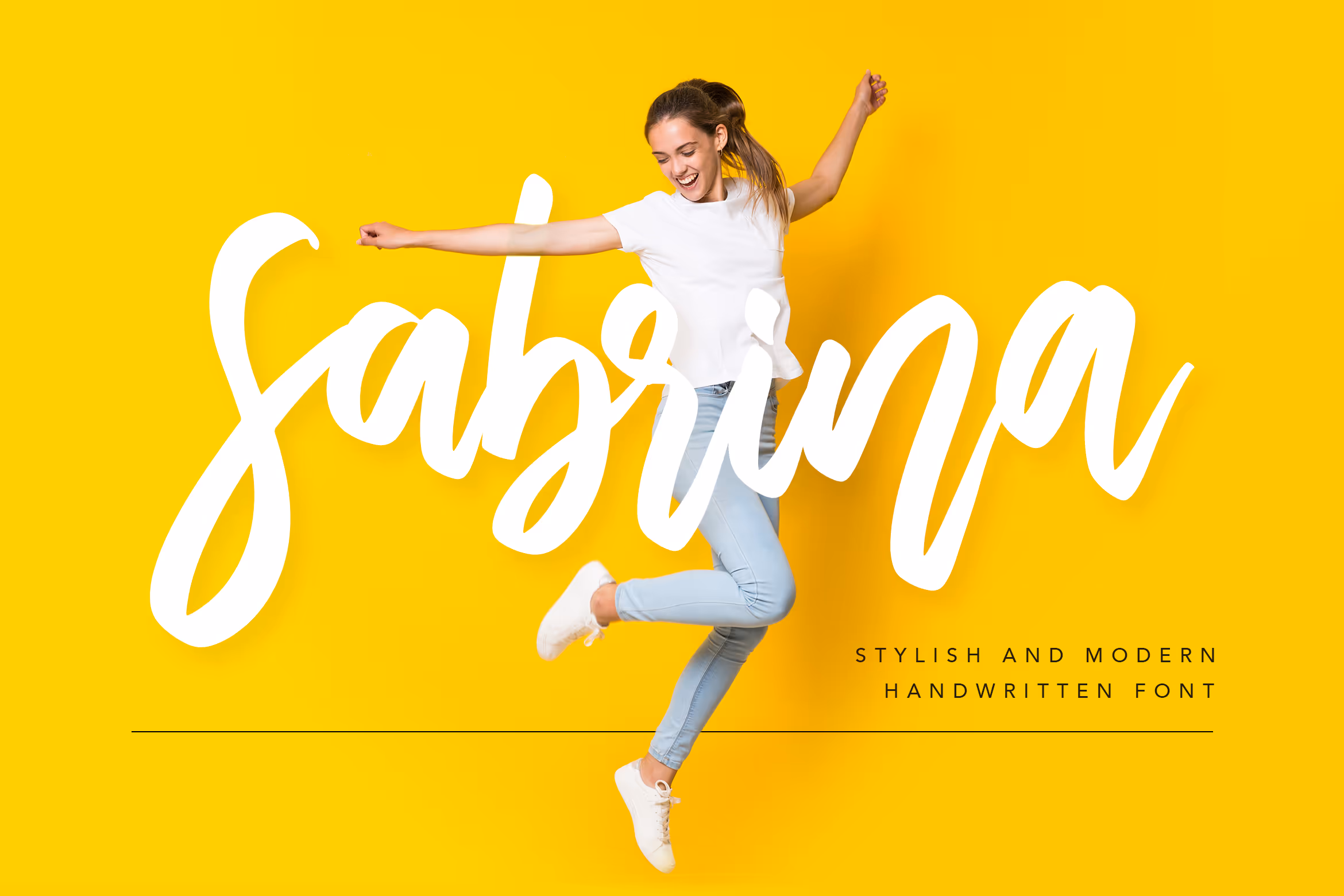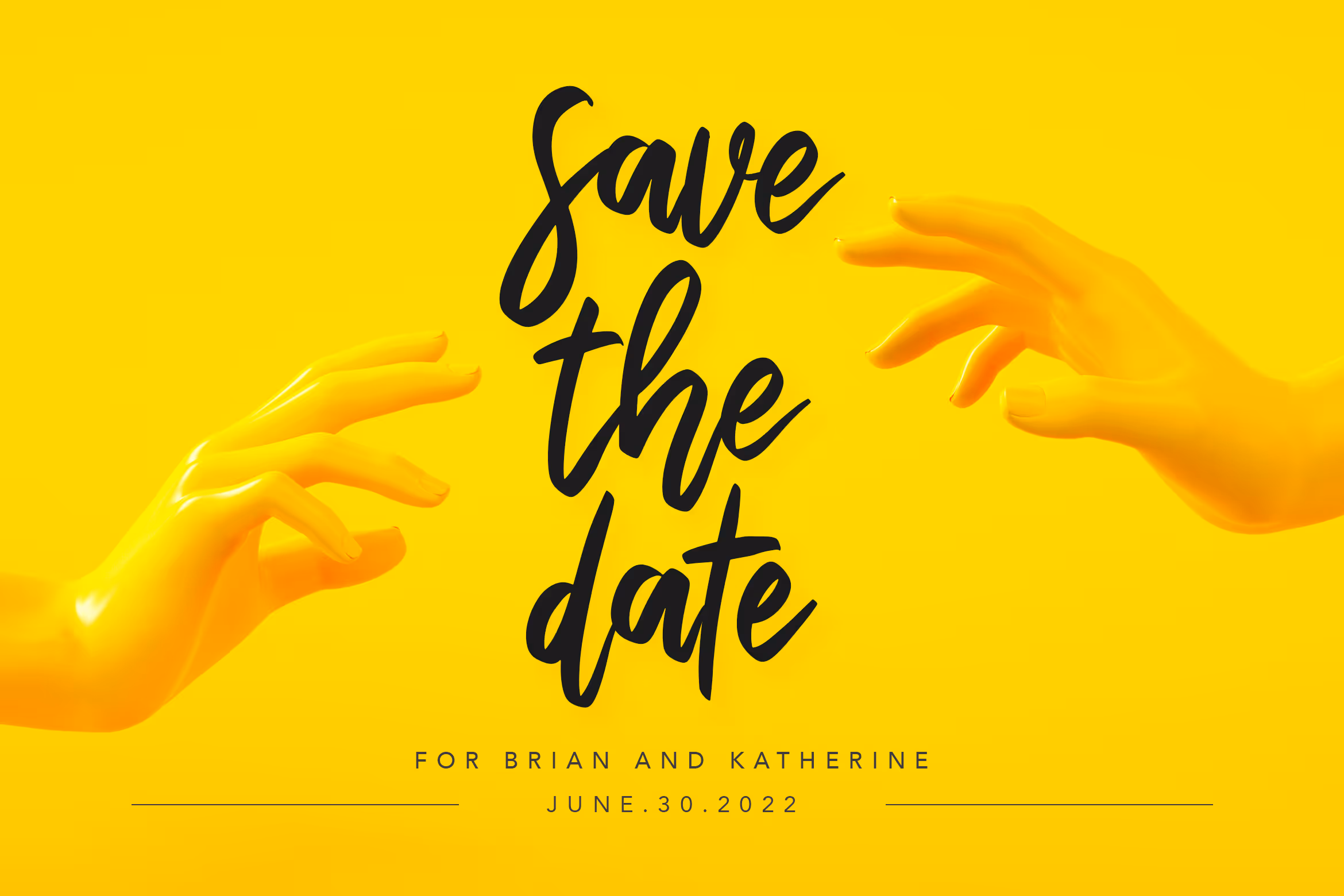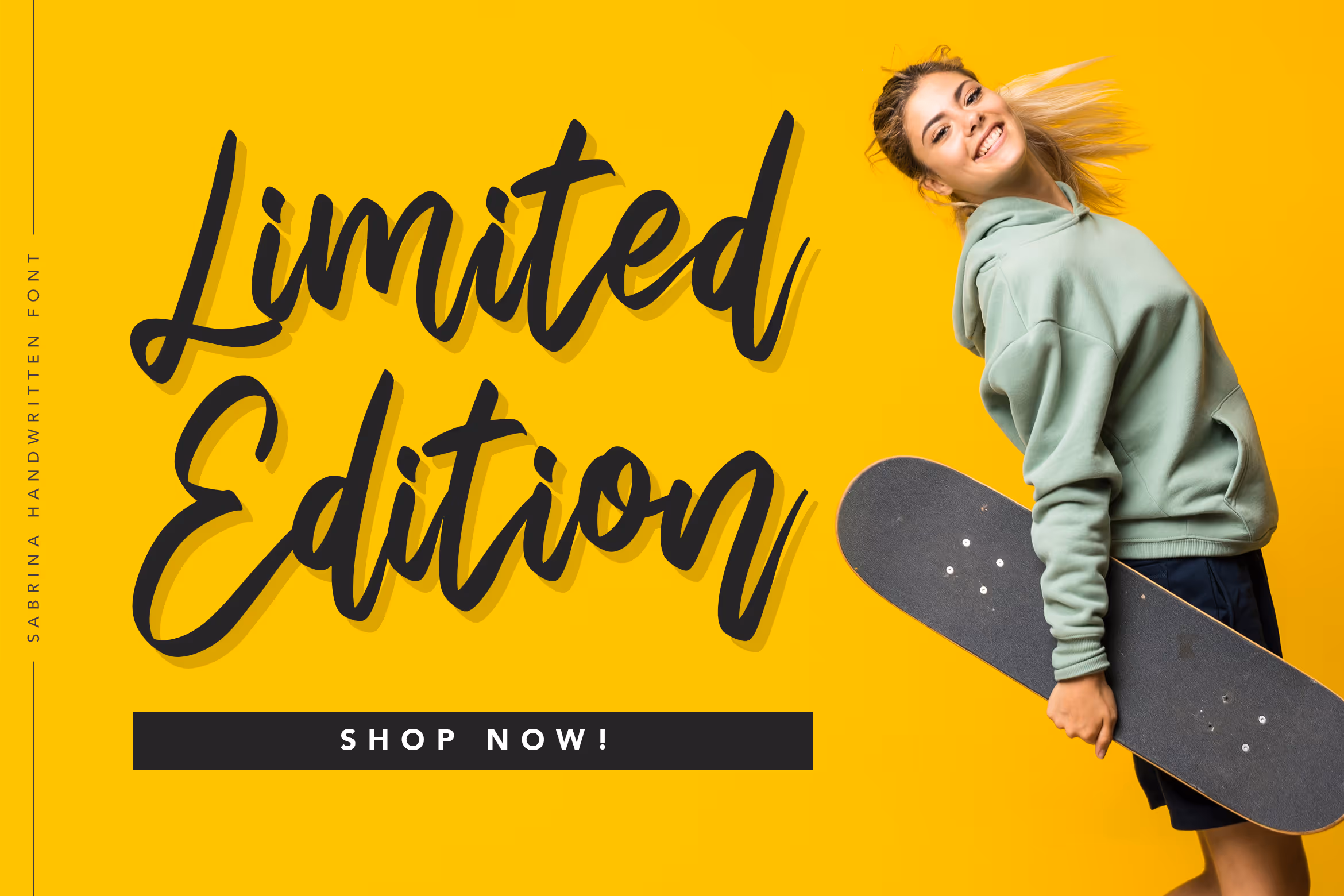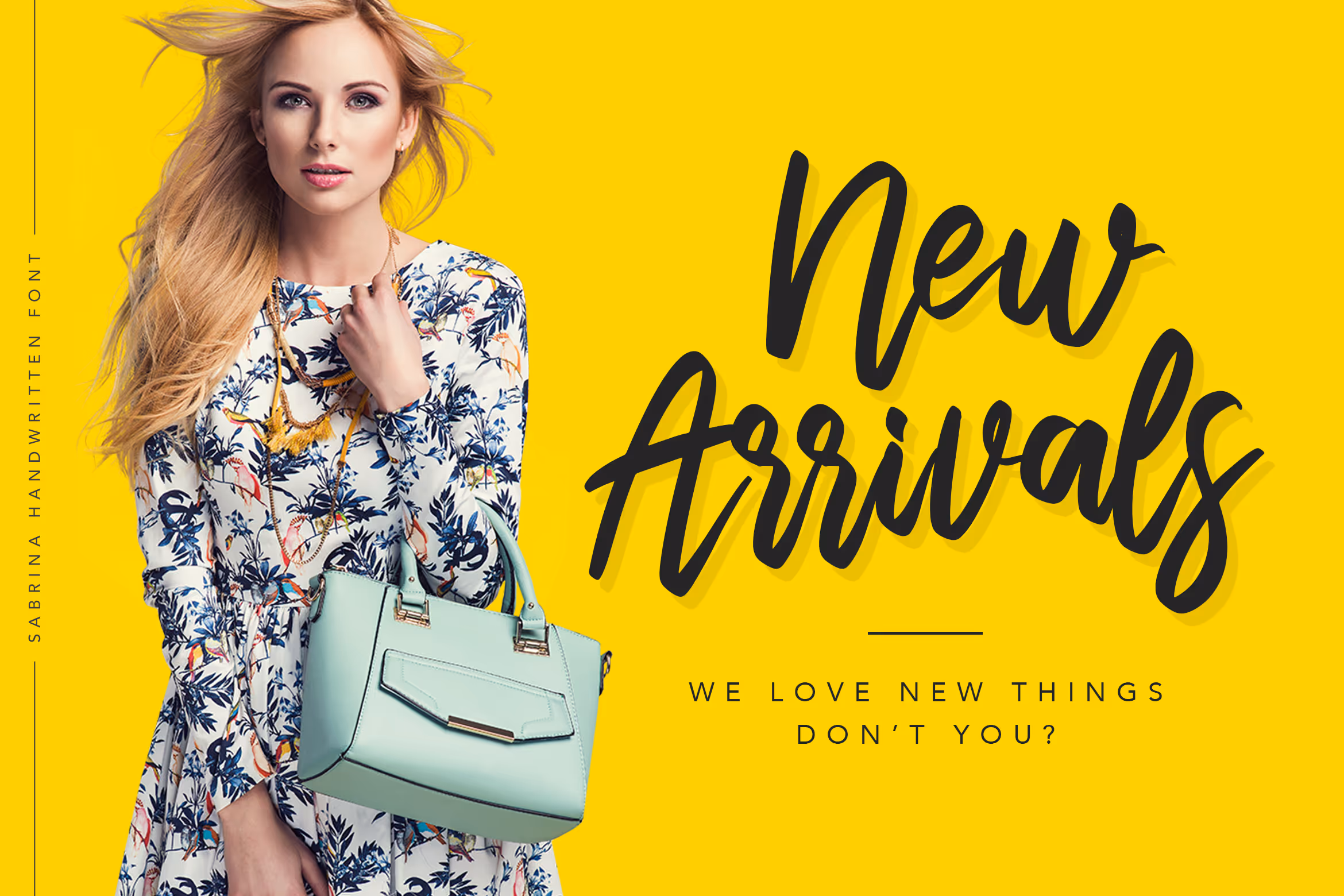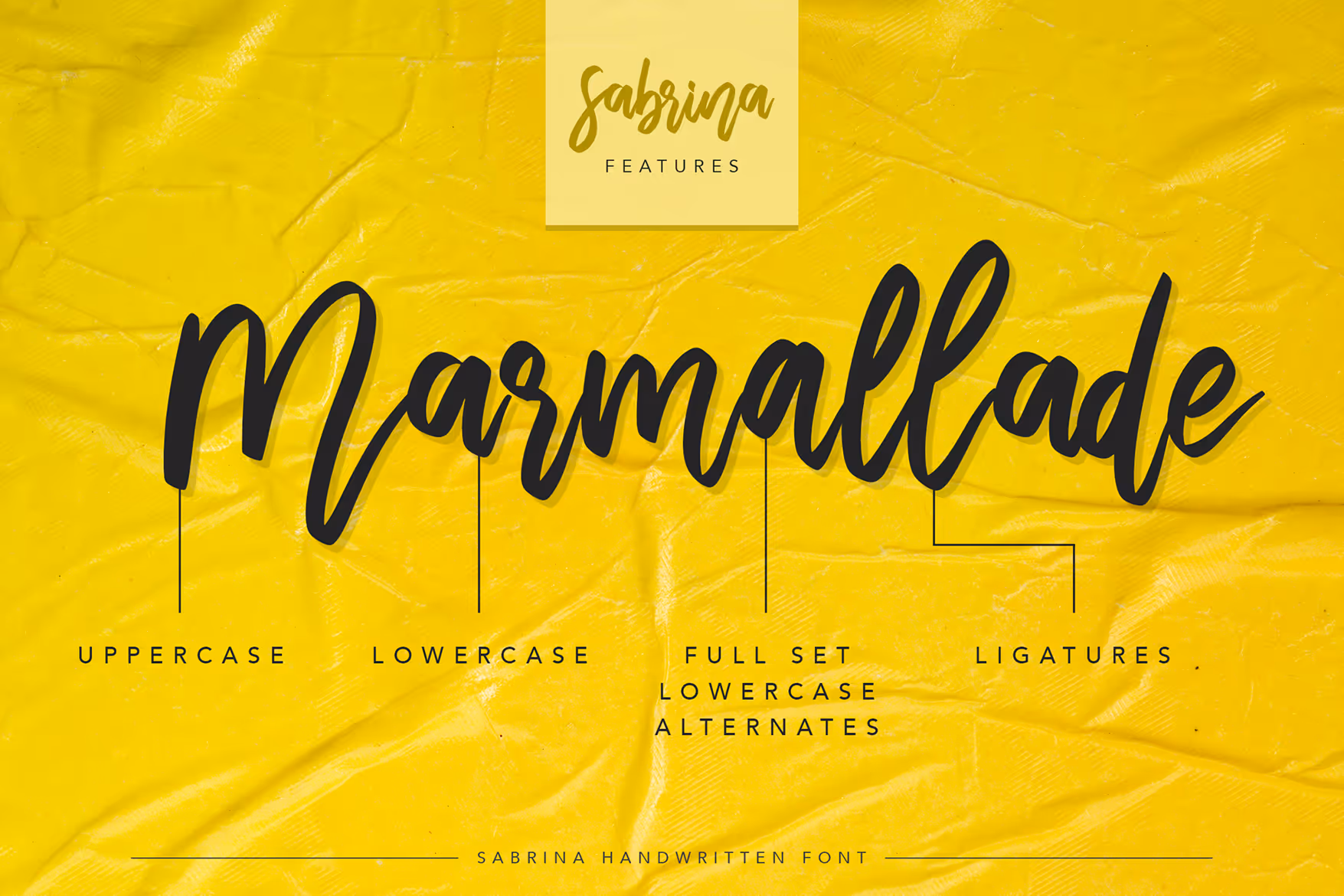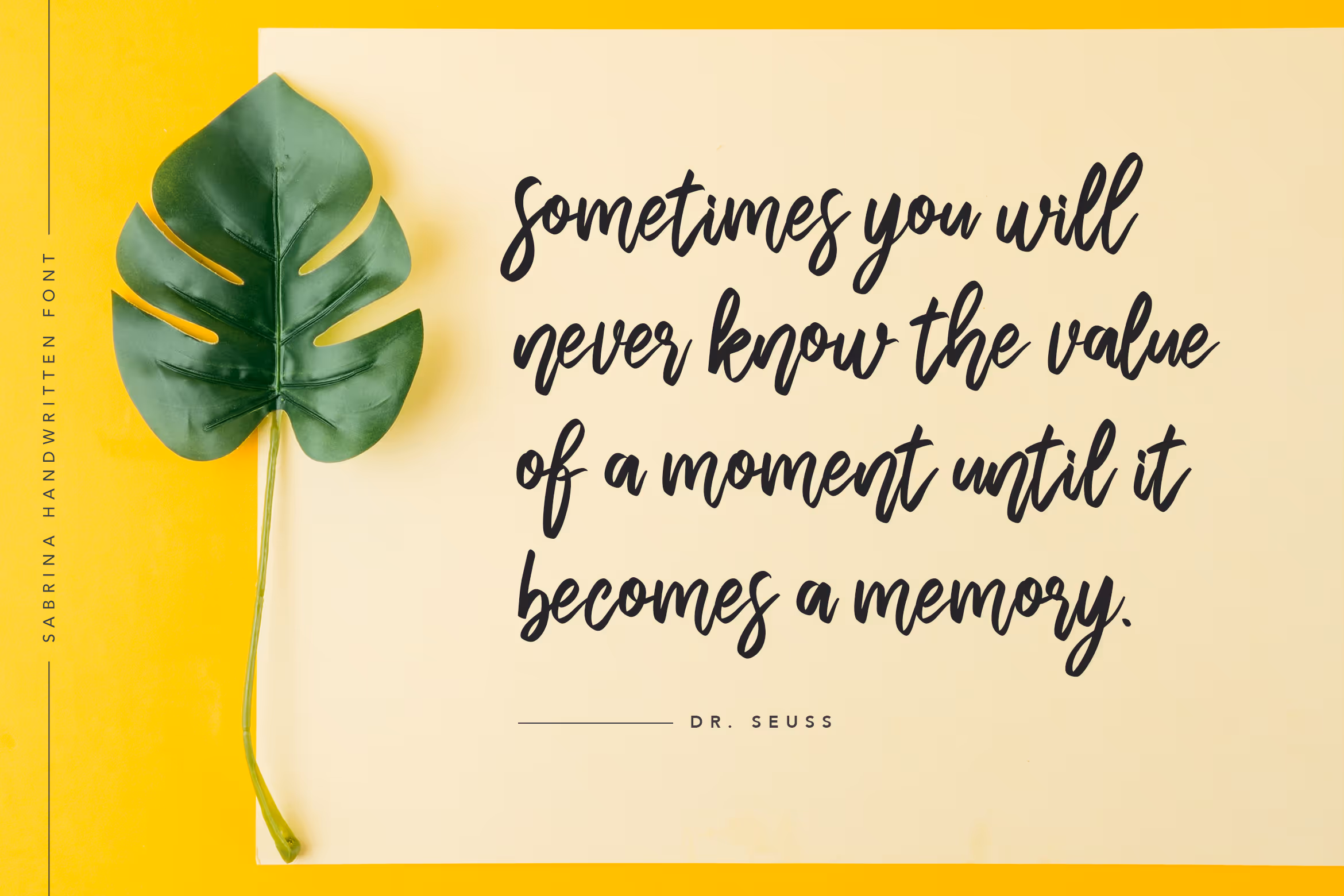
Need something trendy and modern on your display project? Pick Sabrina as your font to make your project more eye-catching and memorable to all your audience and customers. It is suitable for quoted text, wallpaper text, logo, brand, presentation, product design, fashion, wedding and even fresh themed or stylish text overlay to any background of image.